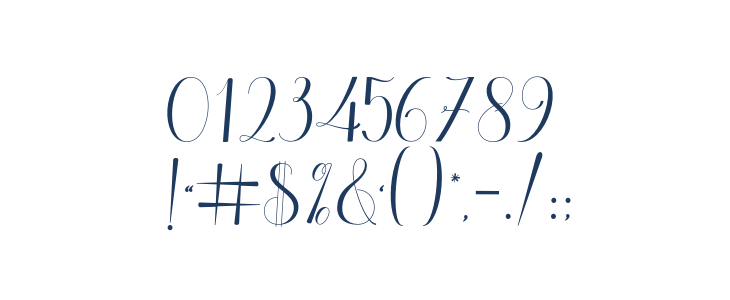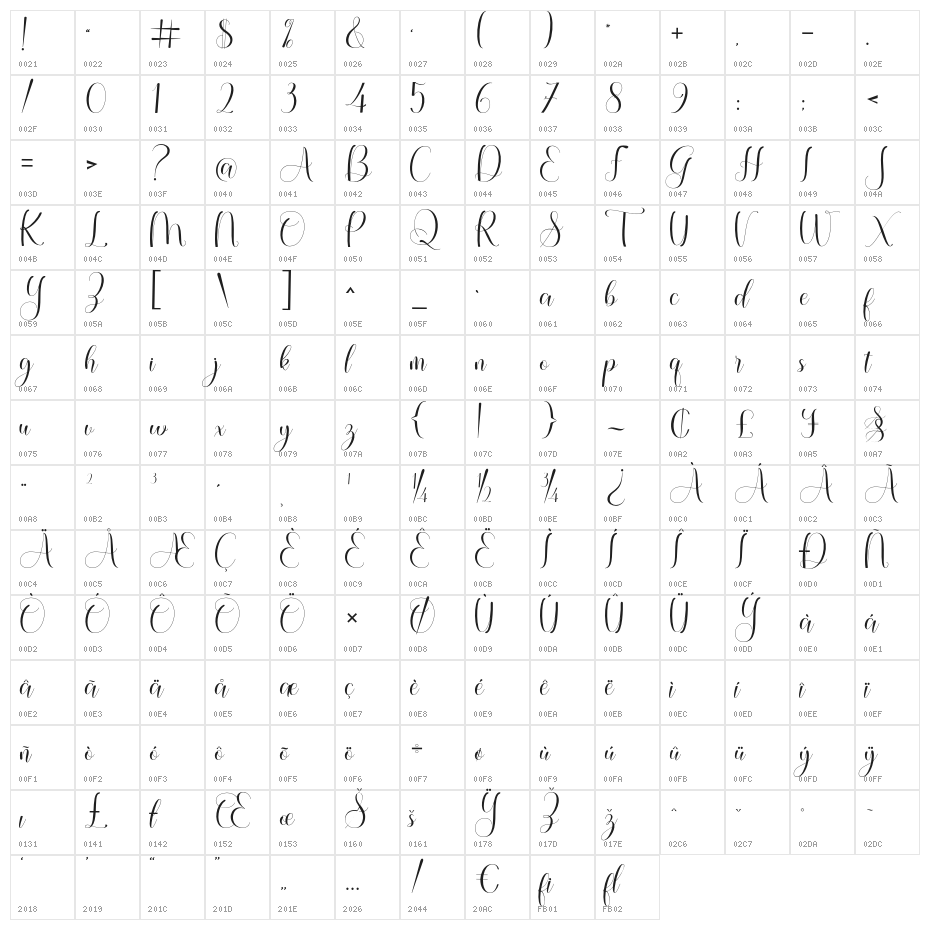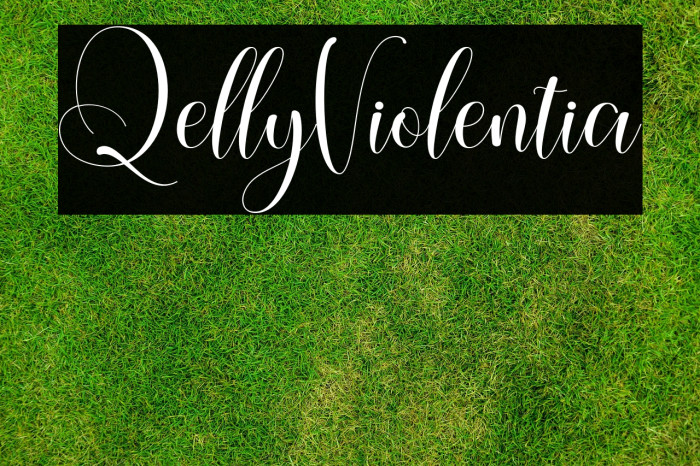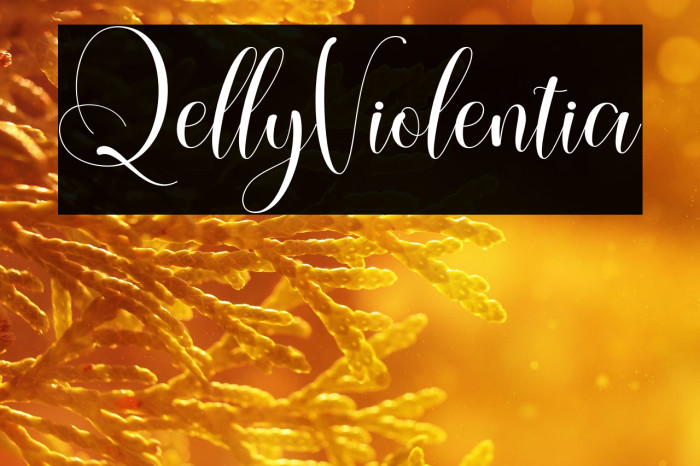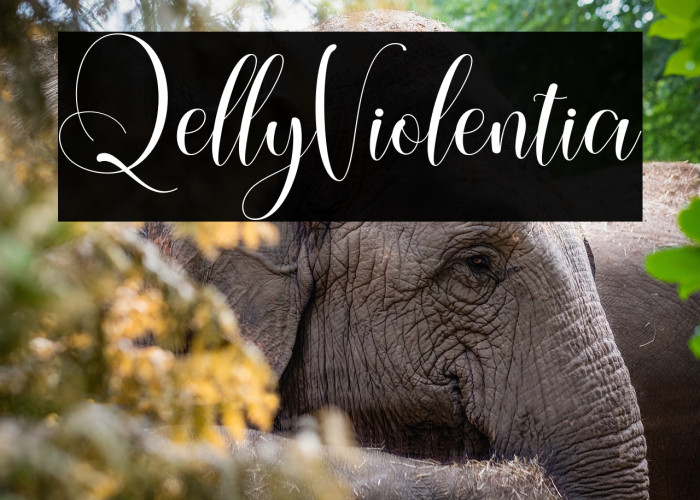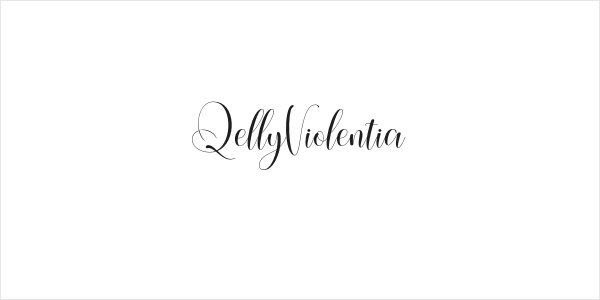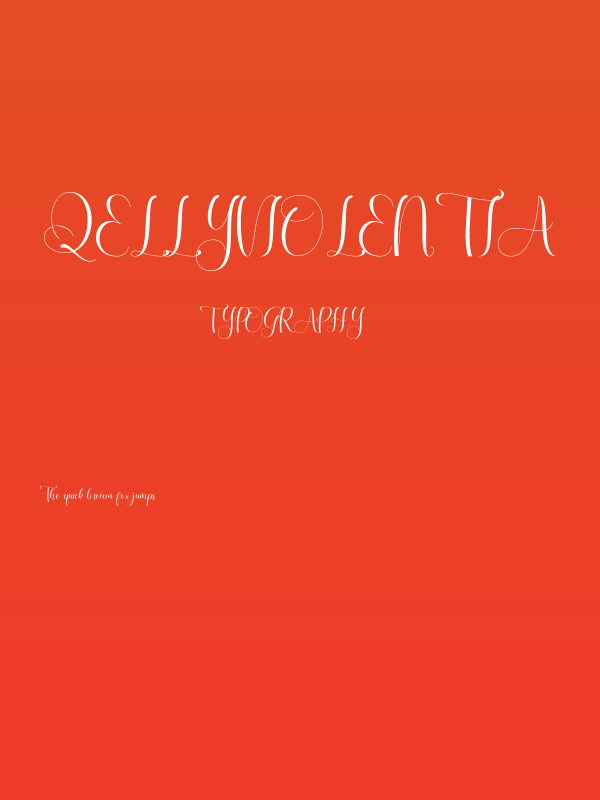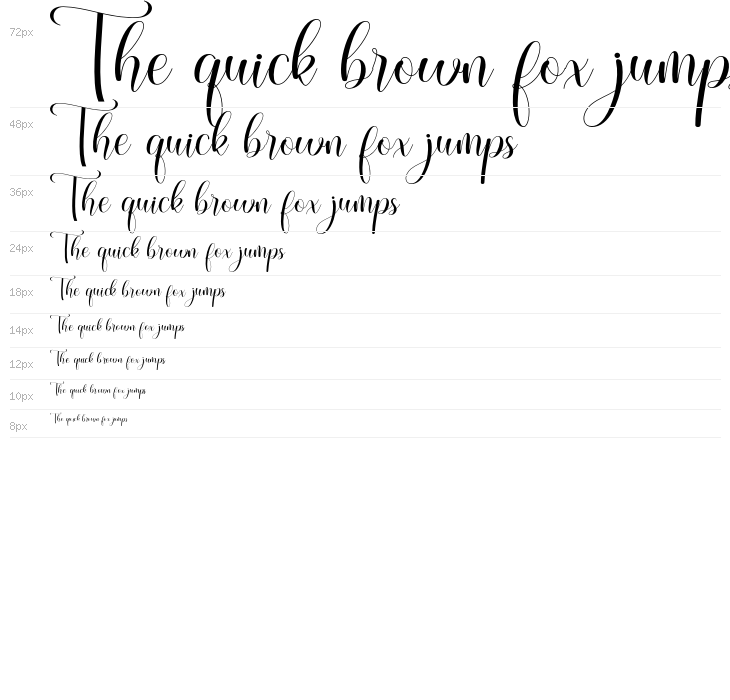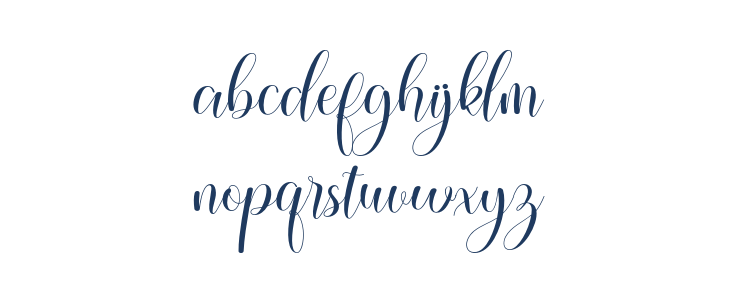
QellyViolentia Font
QellyViolentia Description
This elegant script font features a flowing, cursive style with intricate swashes and loops that give it a sophisticated and artistic appearance. The uppercase letters are particularly ornate, with extended flourishes that add a touch of drama and elegance. The lowercase letters maintain a consistent flow, complementing the uppercase with their graceful curves. Numbers and special characters are designed with the same attention to detail, ensuring a cohesive look across all elements. The font's overall aesthetic is both classic and modern, making it versatile for various design applications.
| Overall Style | Elegant, Artistic |
| Use Case | Headlines, Invitations, Branding |
| Proposed Projects | Ideal for wedding invitations, luxury branding, elegant packaging, and decorative headlines. |